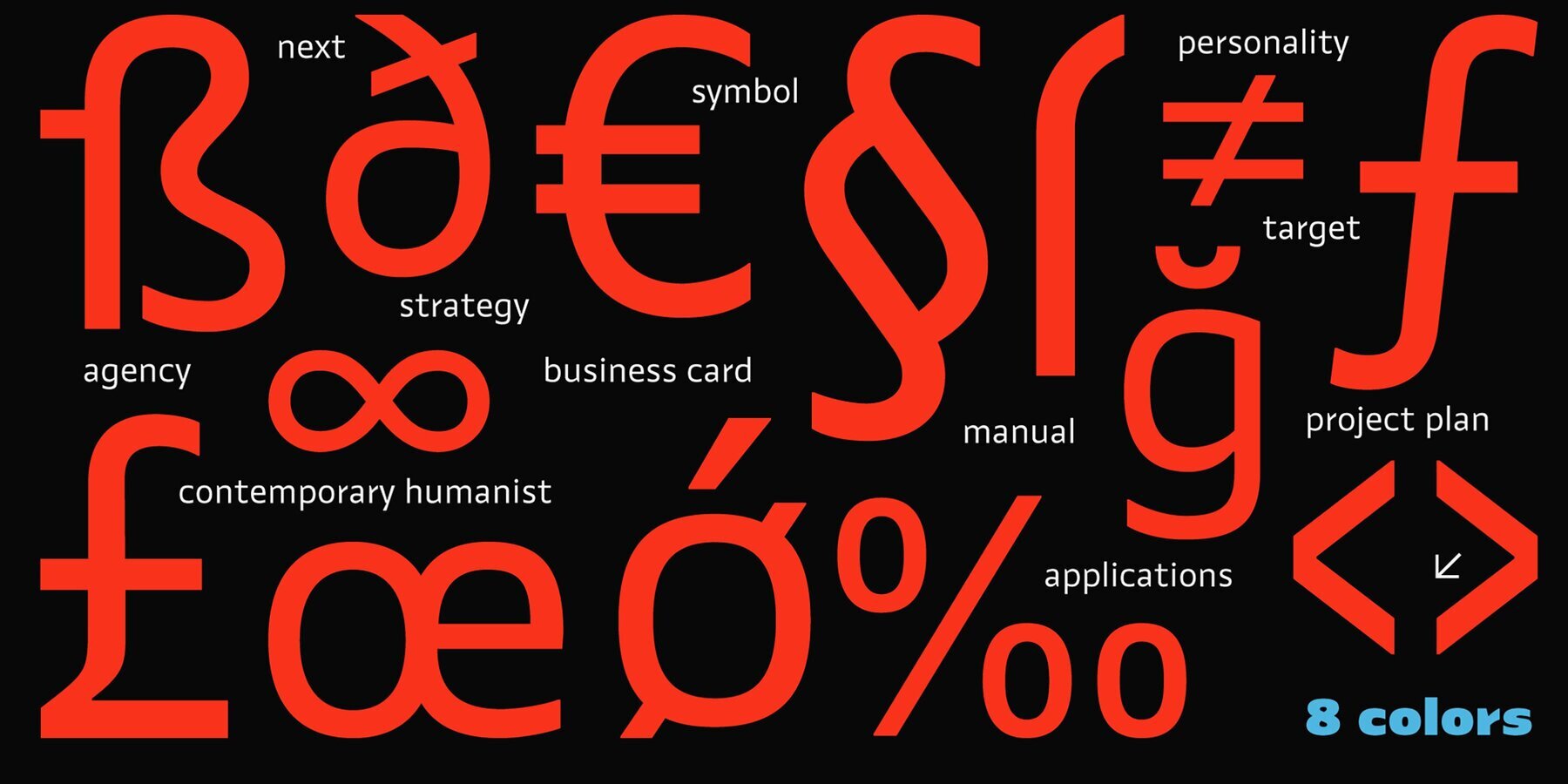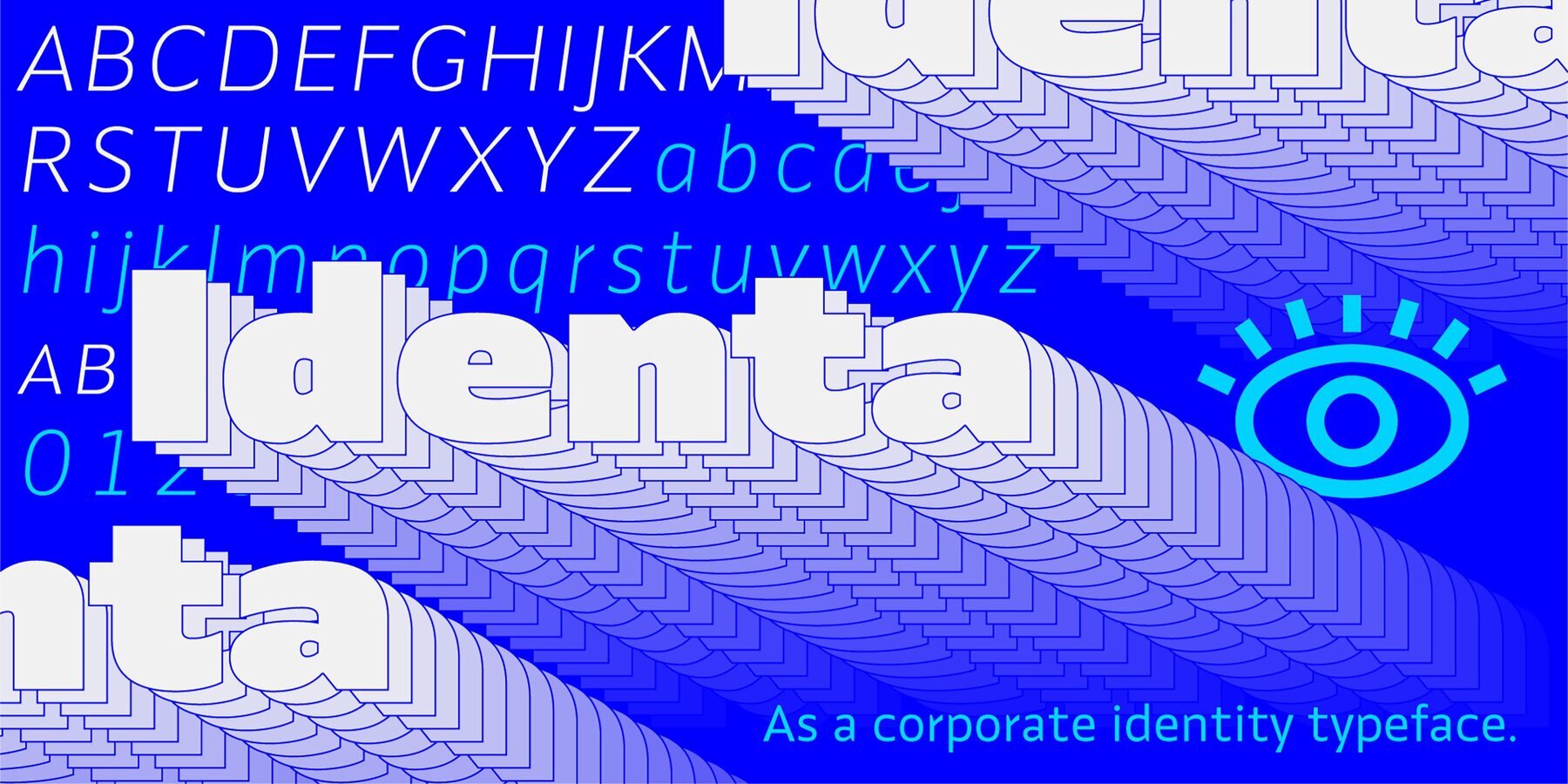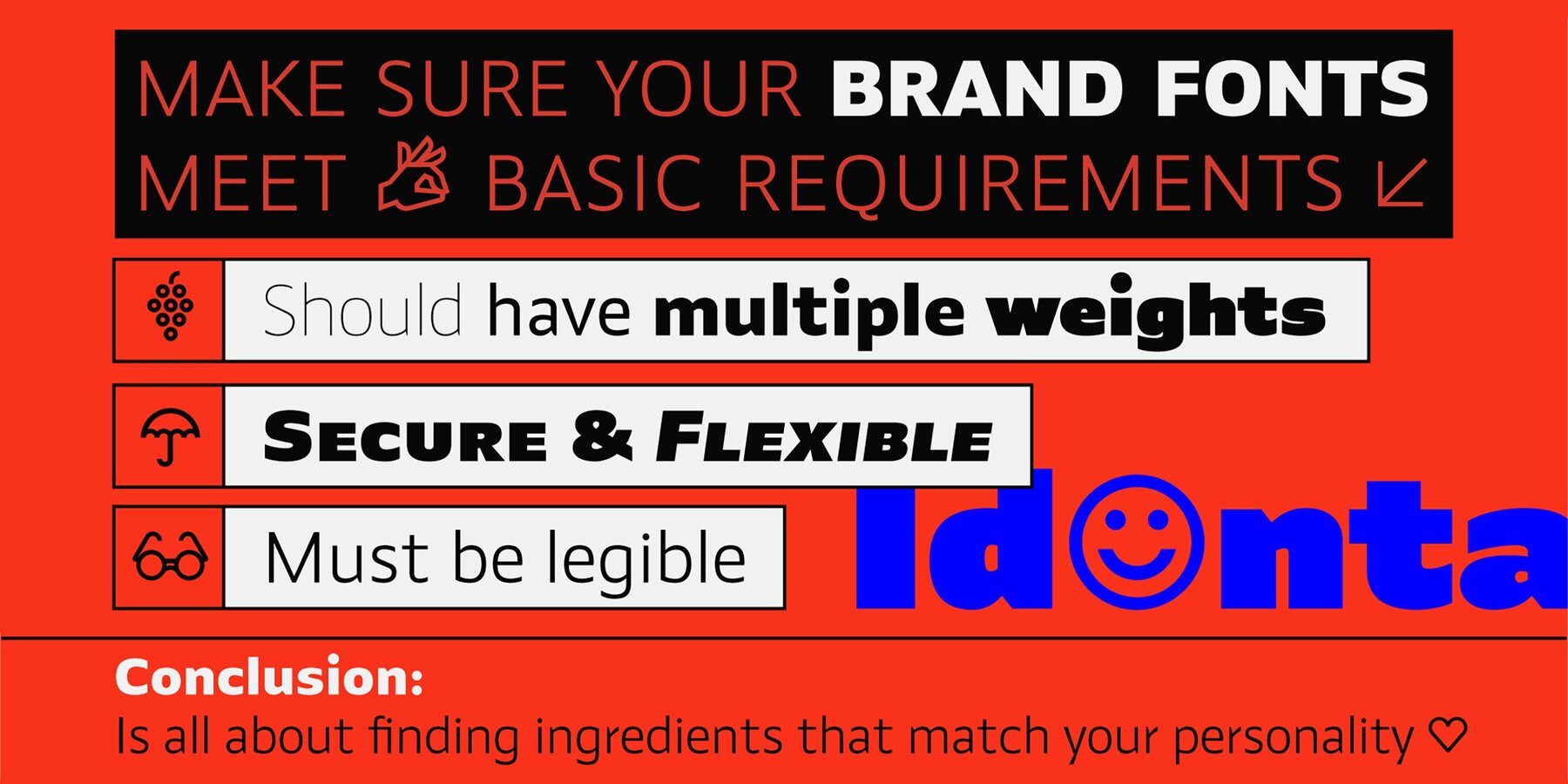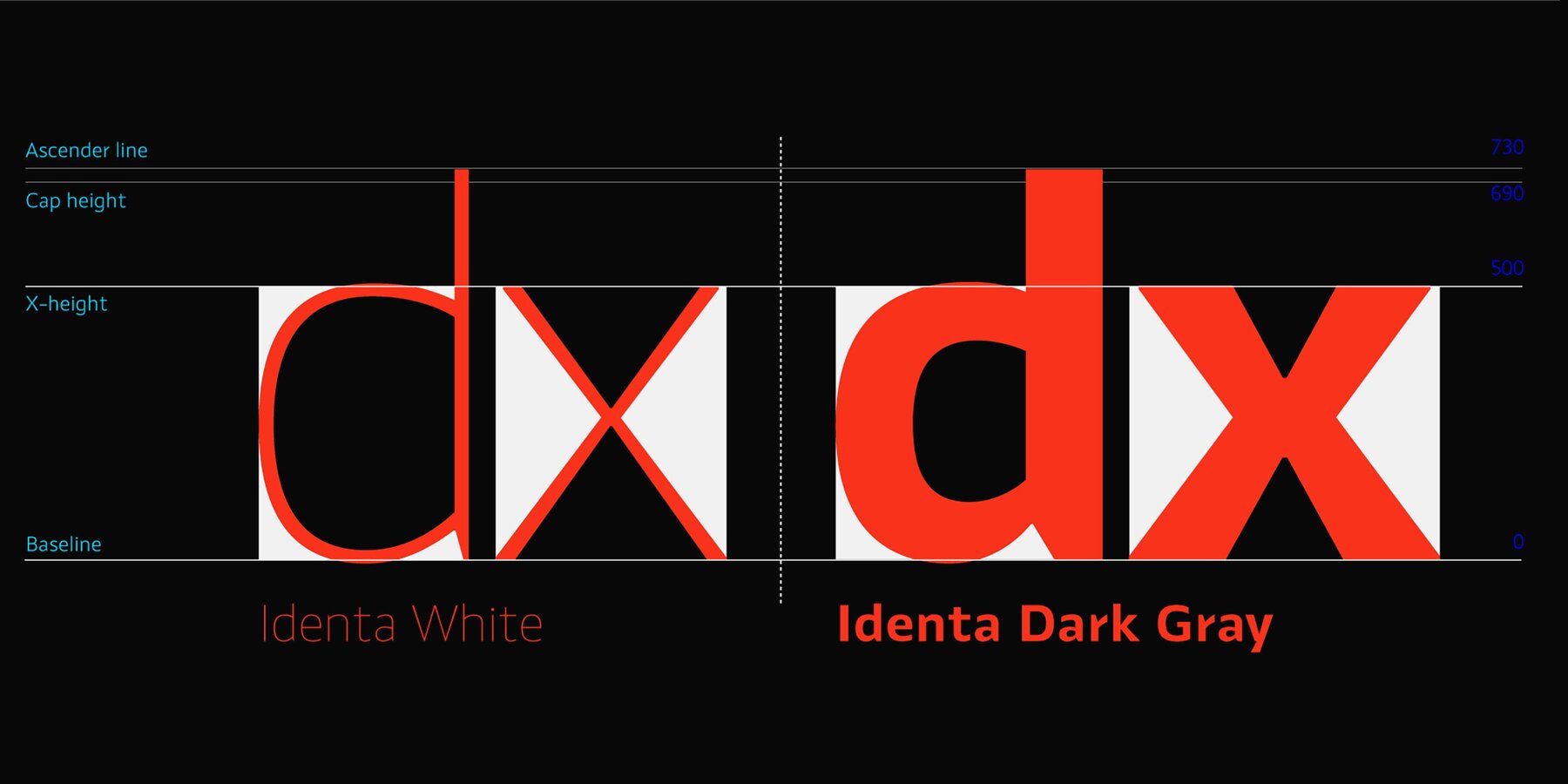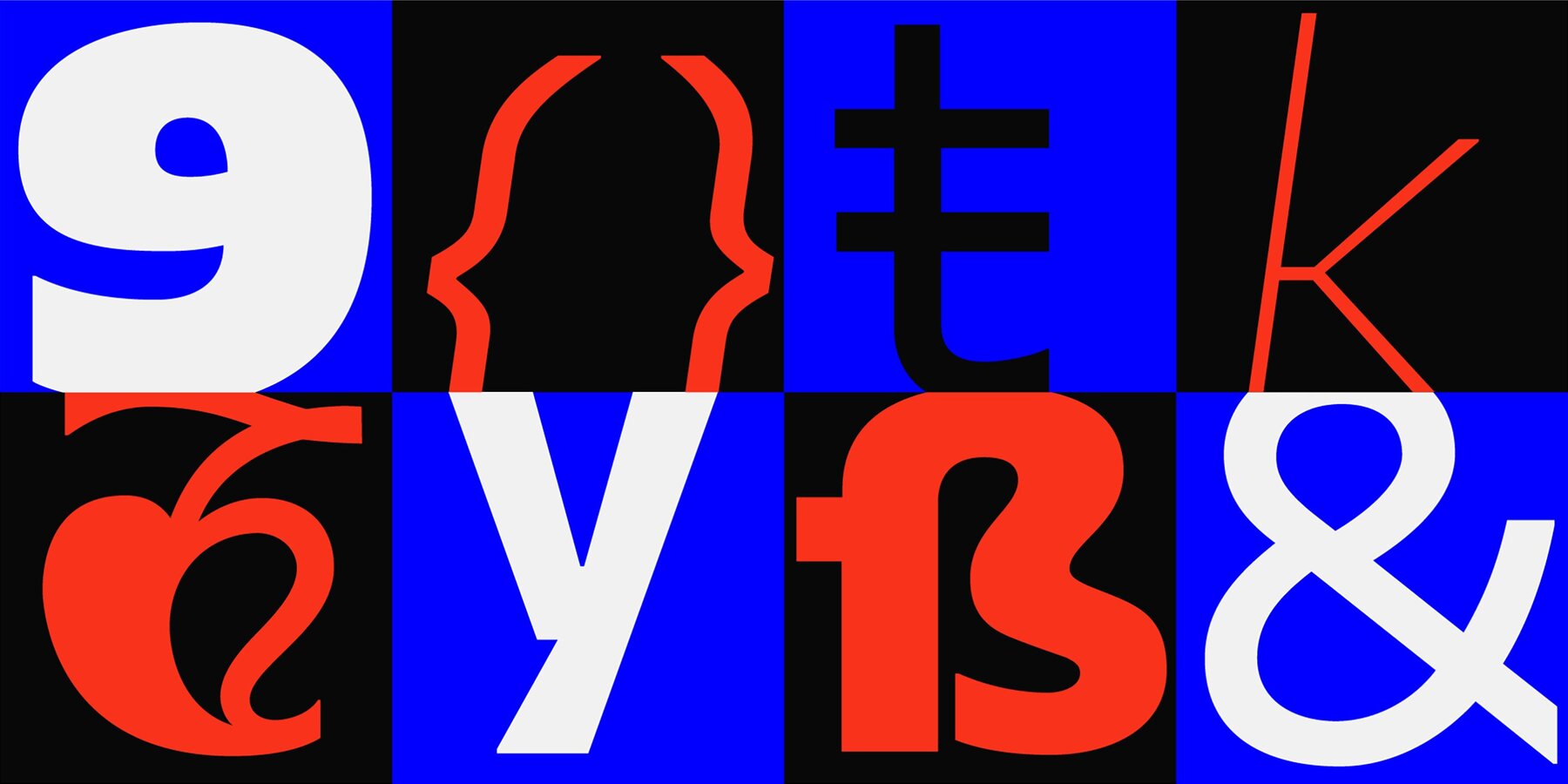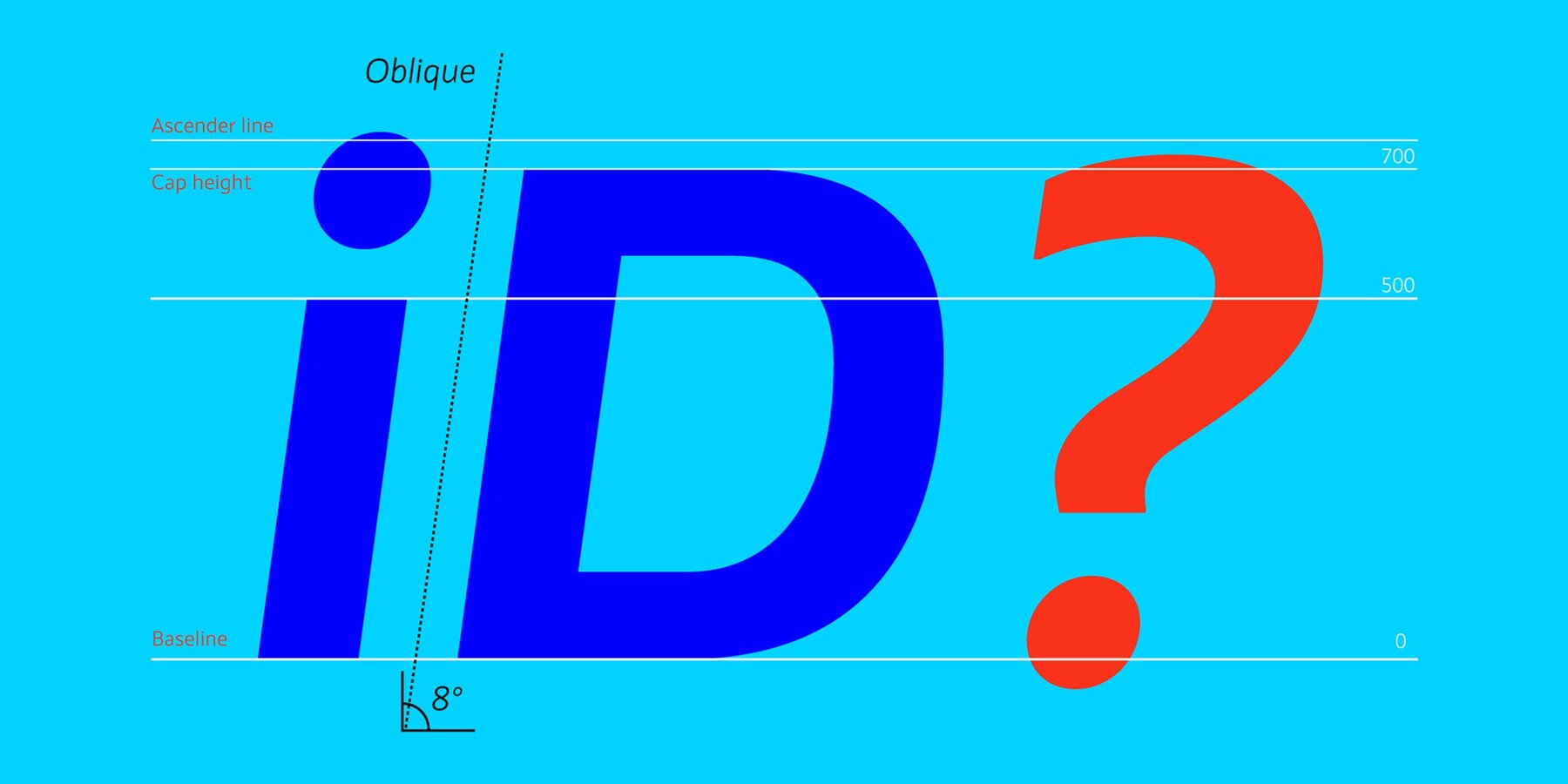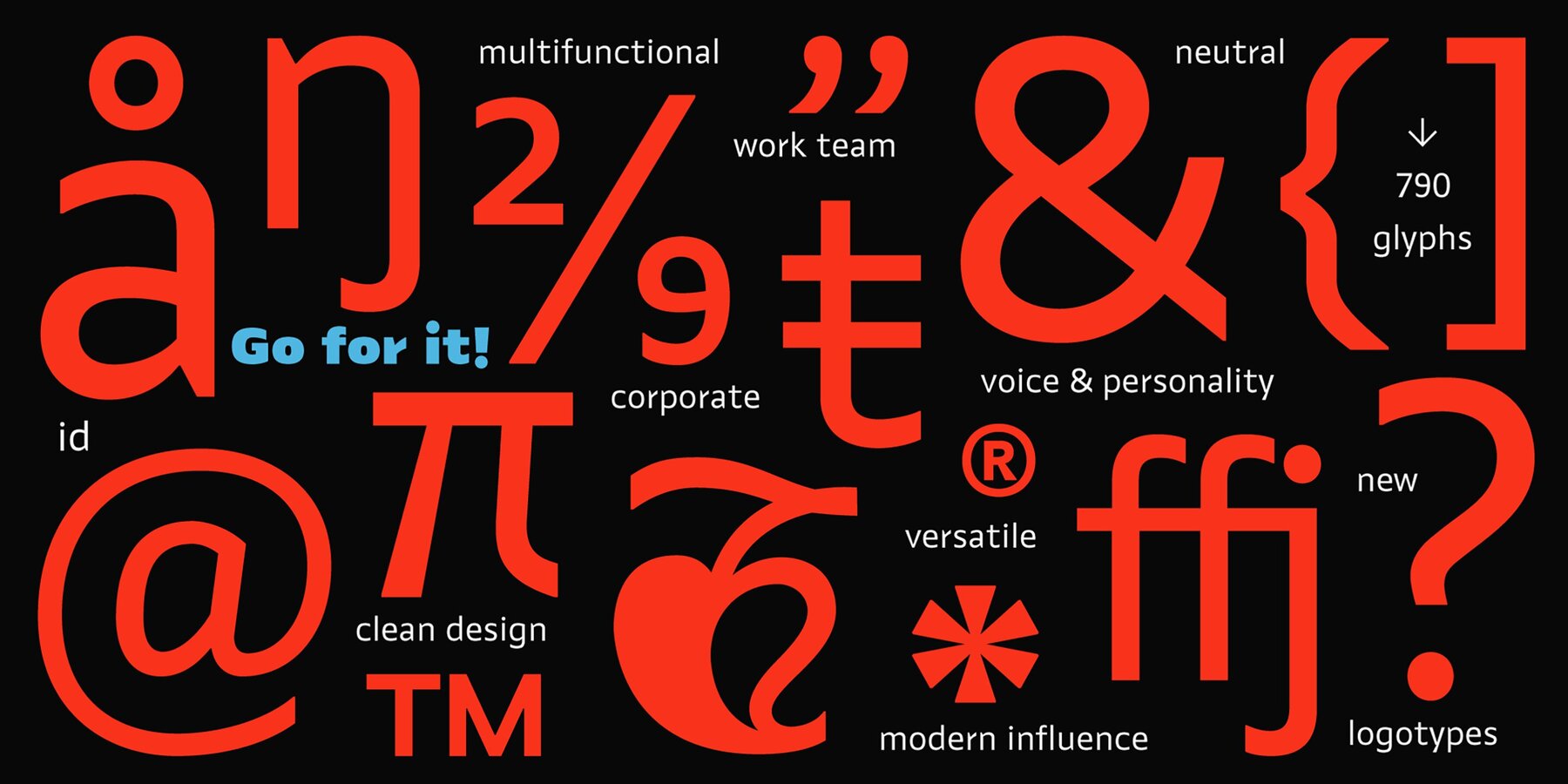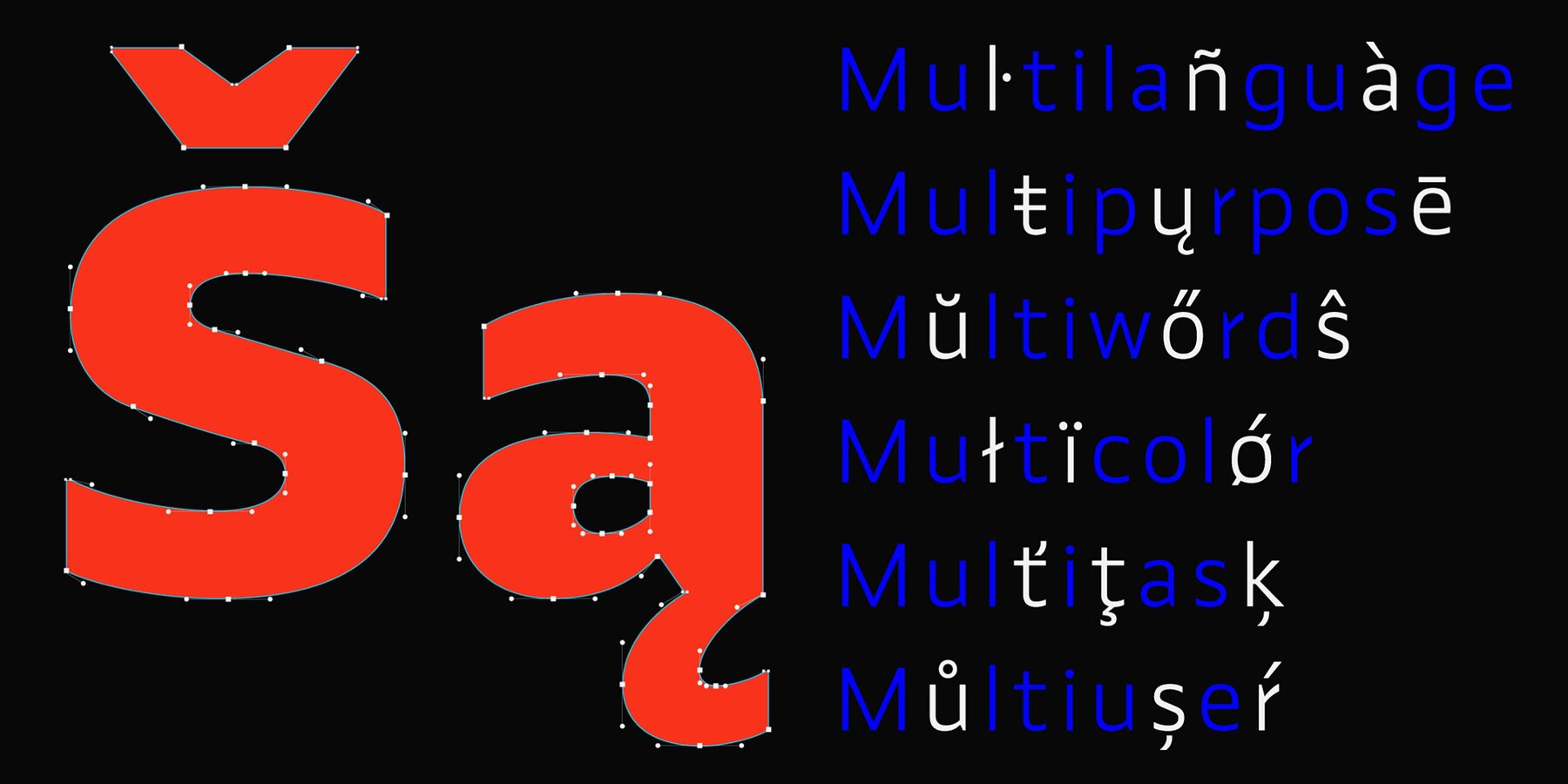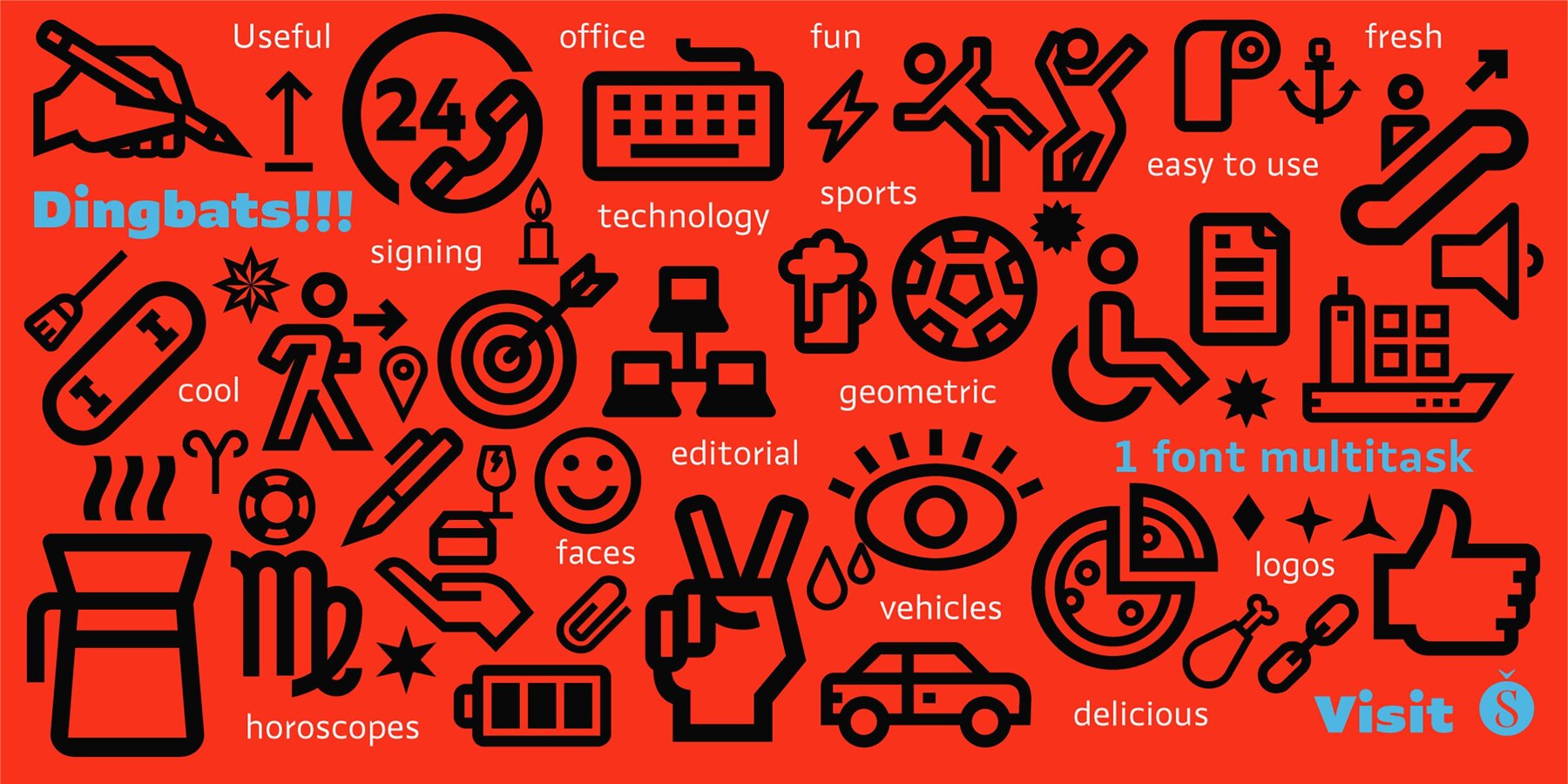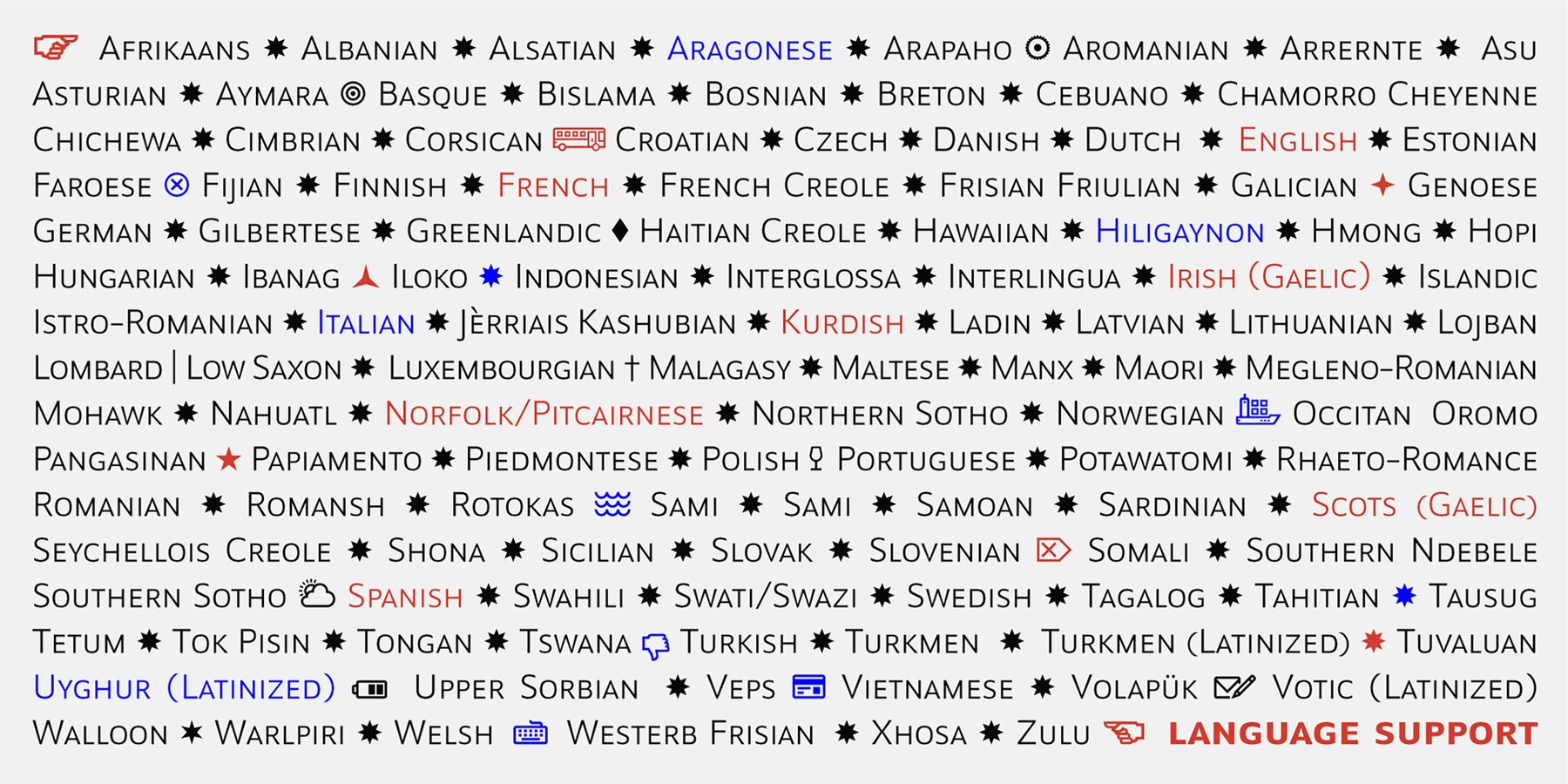
Identa Font
Because we know that you will never get tired of using them and that you will always need a new tool for Identity Design, we created Identa. Conceived to translate corporate and humanist ideals in its typographic form, it seeks a dialogue between neutrality and contemporaneity. With a pragmatic attention to functionality that does not forget aesthetics.
It is a Sans serif model, accessible and well-founded. All-terrain, workhorse that seeks to be reliable and durable. It solves any type of content with efficiency, intelligence and professionalism.
Its clean forms and x-height make it a very competent face for both short identifiers and long text bodies, ideal for display use where legibility and personality must match new design needs within a company.
It is available in eight styles, ranging from its White version to the darker Vantablack, each optimally set with its respective italic variables, and a Dingbats font designed to solve everyday cases.
Each font contains 737 glyphs, macro and micro aesthetic details inspired by current visual communication systems and trends. The dingbats font includes 303 signs and is a set of icons and symbols that can be used in multiple environments, both for print and digital media.
This typeface family seeks to meet the needs of brand designers looking to create an assertive appearance, whatever the case. It is a solid and self-confident typeface, without appearing overly constructed; on the contrary, its nuance makes it look fresh.